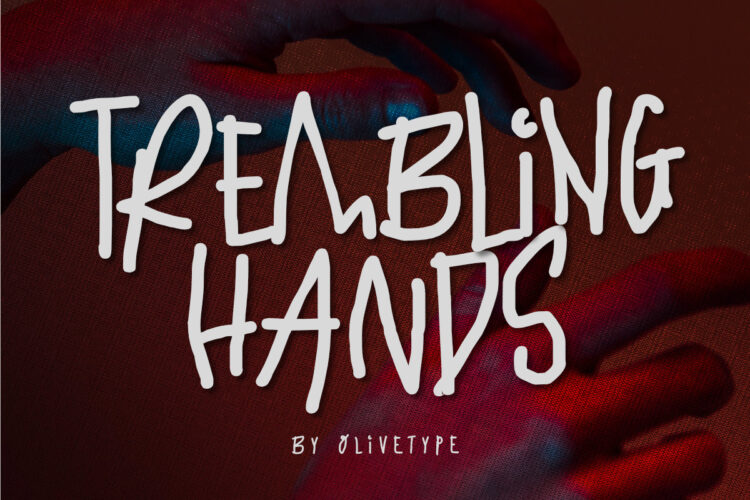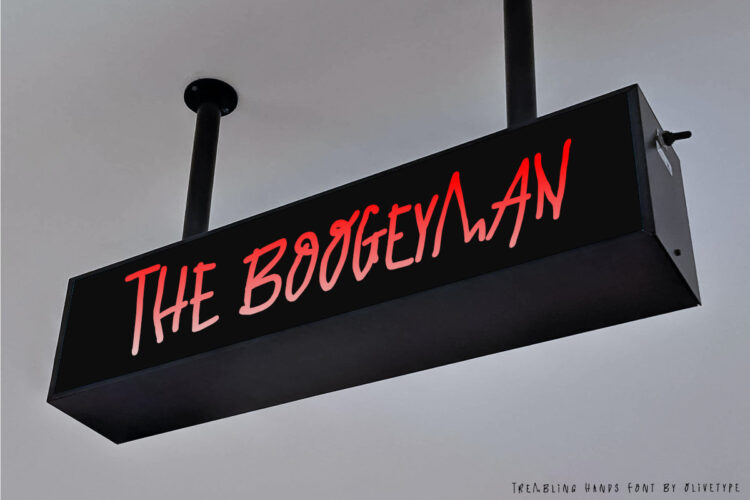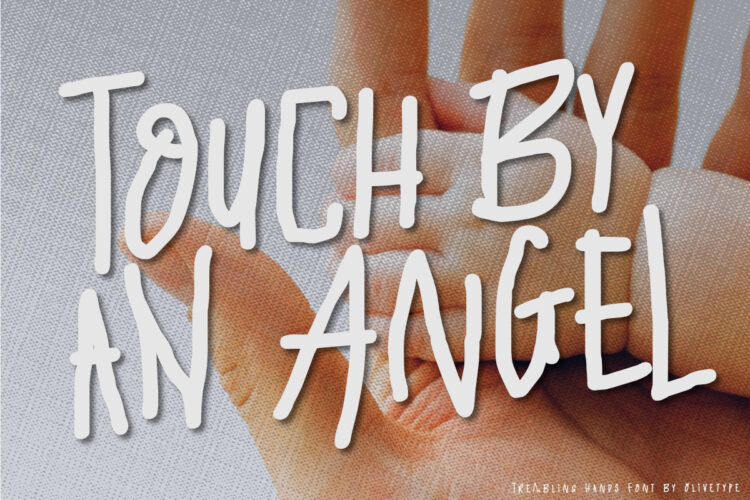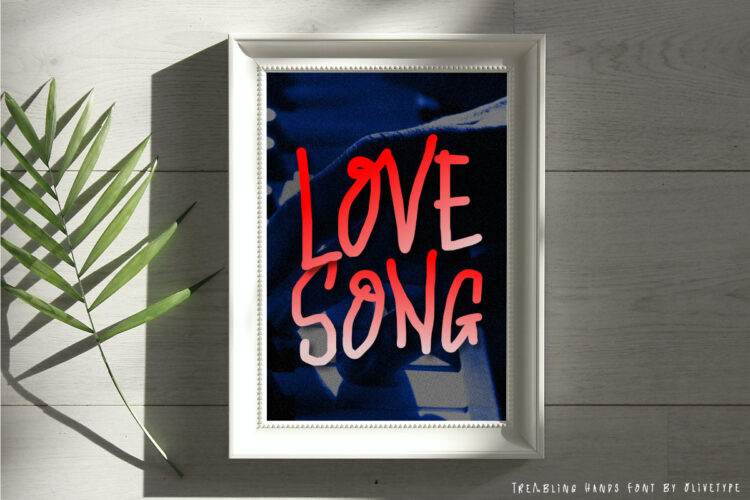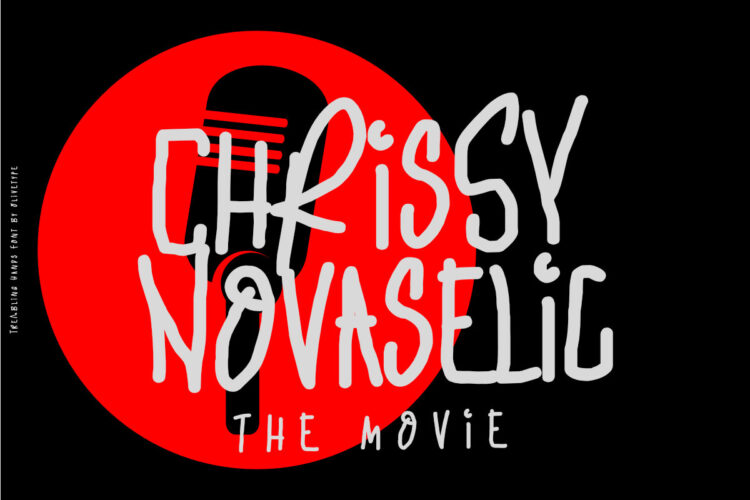
With its flowing strokes and natural-looking letterforms, Trembling Hands captures the essence of hand-drawn beauty. Each character has a slightly wobbly touch, giving it a charming imperfection that sets it apart from other fonts. Whether you’re creating headlines, logos, or branding materials, Trembling Hands adds an artistic flair that will grab attention.